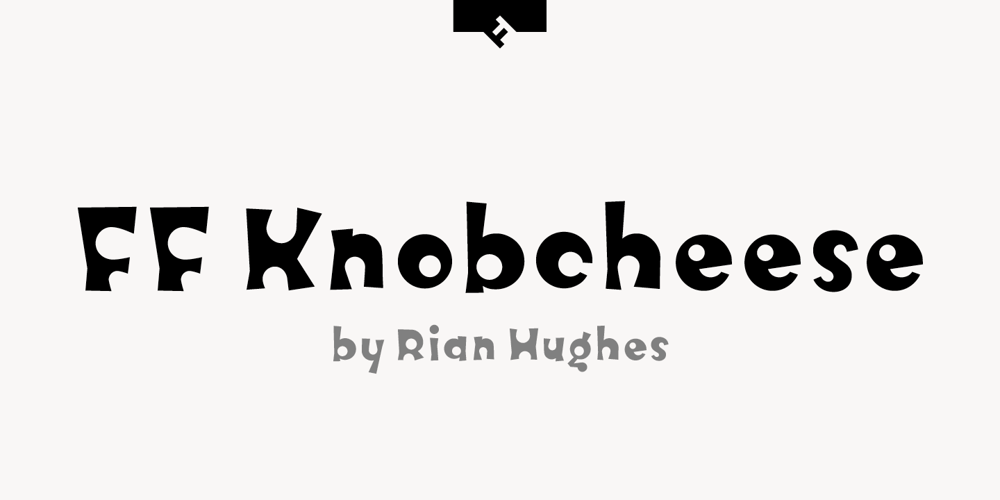
FF Knobcheese
FF Knobcheese font
FF Knobcheese Font Family was designed by Rian Hughes and published by FontFont. FF Knobcheese contains 3 styles and family package options. British type designer Rian Hughes created this display FontFont in 1994. The family contains 3 weights and is ideally suited for advertising and packaging and poster and billboards. FF Knobcheese provides advanced typographical support with features such as ligatures and case-sensitive forms. It comes with proportional lining figures.